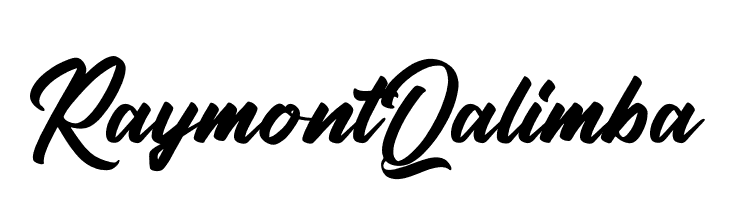
A modern slab serif font with an italic slant and medium weight, perfect for dynamic designs.
A bold, textured script font with a hand-drawn, cursive style.
A playful, stone-carved style font with bold outlines and rugged texture.
A bold, three-dimensional font with a strong shadow effect and geometric structure.
A sleek, ultra-thin, and extra expanded modern font with a geometric structure.
A bold, brush-style font with a playful, spooky vibe.
A bold, artistic font with tall, narrow letters and unique serifs.
An elegant script font with intricate, flowing letterforms and decorative flourishes.
A bold, dynamic font with a graffiti-inspired style and shadow effect.
A playful, hand-drawn font with a whimsical and casual style.
设计师偏爱 Umba Slab Demo Alt Medium Italic, DianaRoughFREE, Funky Stoneage, Motorcade-Regular and QuacheThinExtraExpandedPERSO,因为其造型干净、适用范围广—— 从品牌识别到落地页、海报都能胜任。